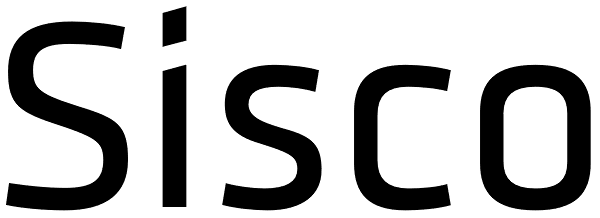
Sisco
Sisco is a complete font family of 18 weights intended for editorial use and brand identity. Open counterforms give it a touch of modernity and technological. Sisco is designed to be legible in small sizes in both paper and display devices. It...